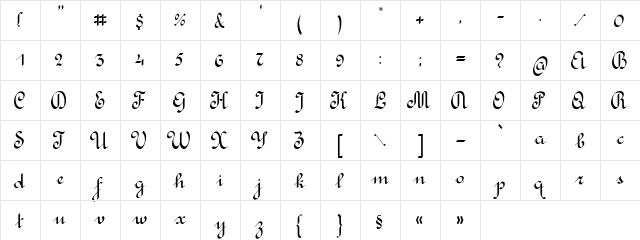
Rondo Calligraphic Regular
| Foundry | Ivan Zeifert works |
| Designer | Ivan D Zeifert |
Design Context for Rondo Calligraphic Typeface
Rondo Calligraphic channels the dramatic heritage of Fraktur and Gothic scripts, bringing a sense of historical gravitas to any design.
A natural fit for music packaging, gothic editorial design, and any project that needs historical weight.
Font Pairing: Pair with a clean neutral sans-serif for body copy to let Rondo Calligraphic's character lead without overwhelming the composition.
Pro Tip: Reserve Rondo Calligraphic for display and logo use — pair it with a clean sans-serif for body copy to prevent the composition from feeling oppressive.